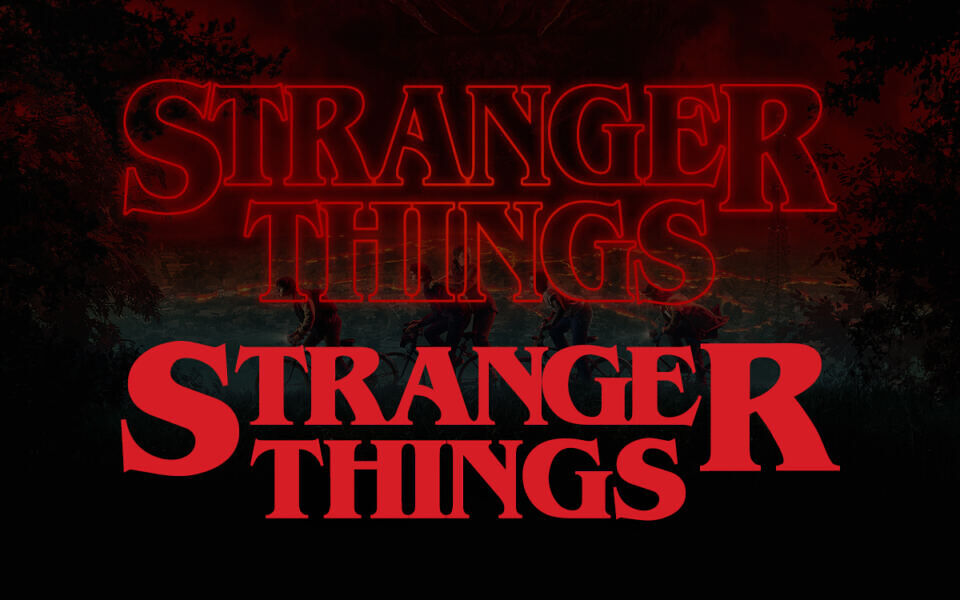
Stranger Things Logo Font
Since its debut in 2016, Stranger Things has evolved from a sleeper hit into a definitive global phenomenon. As of early 2026, following the release of its massive final season, the series has solidified its place as one of the most-watched shows in television history, which has already reached its final fifth season, released at the end of 2025, marking the end of the acclaimed TV series.
The Stranger Things logo style is as much about atmospheric texture as it is about the letters. Designed by the creative agency Imaginary Forces, the visual identity was crafted to feel like a physical object from 1983 rather than a digital graphic.
If you’re wondering what font was used in the Stranger Things logo, it’s the ITC Benguiat font, created by designer Ed (Ephram Edward) Benguiat. The iconic ITC Benguiat font pays homage to 1980s Stephen King book covers. Its glowing red letters and retro serifs perfectly evoke a sense of supernatural mystery and nostalgia.
Designed by: Edward Benguiat